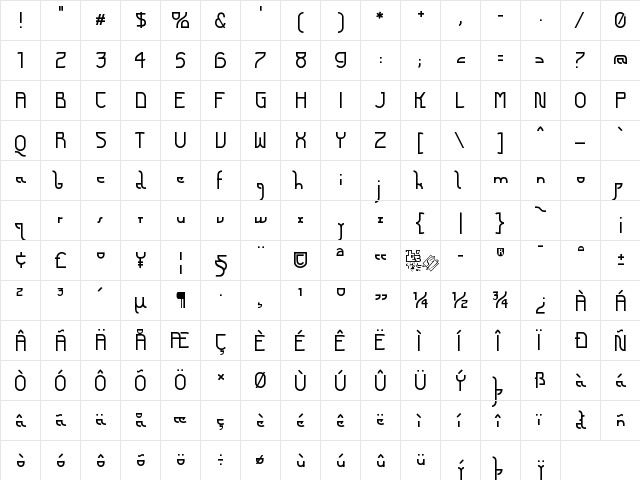
Futurex Arthur Regular
Design Context for Futurex Arthur Typeface
Futurex Arthur has a distinctly futuristic character, with geometric precision and clean angles that feel at home in technology, gaming, and sci-fi contexts.